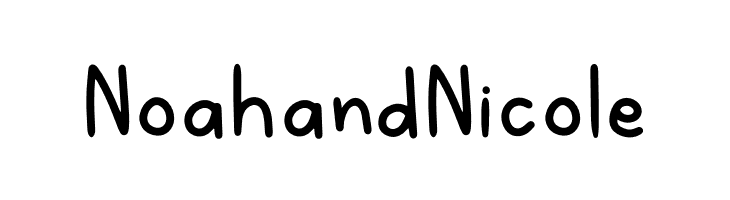
A modern, dotted font with a digital, tech-inspired aesthetic.
A light, italic font with a fluid and dynamic style.
A bold, italicized handwritten font with dynamic and playful characteristics.
A bold, playful handwritten font with rounded edges and consistent strokes.
A playful, handwritten italic font with a dynamic and fluid style.
A playful, handwritten font with thin strokes and an informal style.
A playful, handwritten font with smooth, flowing lines and a casual aesthetic.
A modern, geometric font with rounded edges and a condensed style.
A modern dot matrix font with evenly spaced dots forming each character.
A modern, dotted font with a digital, pixelated appearance.
A pixelated, dot-based font with a retro digital aesthetic.
A playful, pixelated font with a dot matrix style, ideal for retro digital themes.
A bold, vintage serif font with dramatic strokes and sharp serifs.
A bold, flowing script font with a lively and dynamic character.
A bold, flowing script font with smooth, rounded edges and dynamic curves.
A bold, grunge-style font with intricate, swirling patterns and a rebellious edge.
A bold, playful font with rounded, whimsical characters.
A bold, playful font with rounded, hand-drawn characters.
A bold, playful, and italicized font with rounded characters and tight spacing.
A bold, playful, and dynamic font with rounded, slanted characters.
A bold, distressed font with a grunge aesthetic.
A futuristic, angular italic font with geometric shapes and sharp edges.
A futuristic, geometric font with angular edges and consistent thickness.
A bold, flowing script font with elegant swash caps and dynamic curves.
A bold, swashy script font with playful and energetic curves.